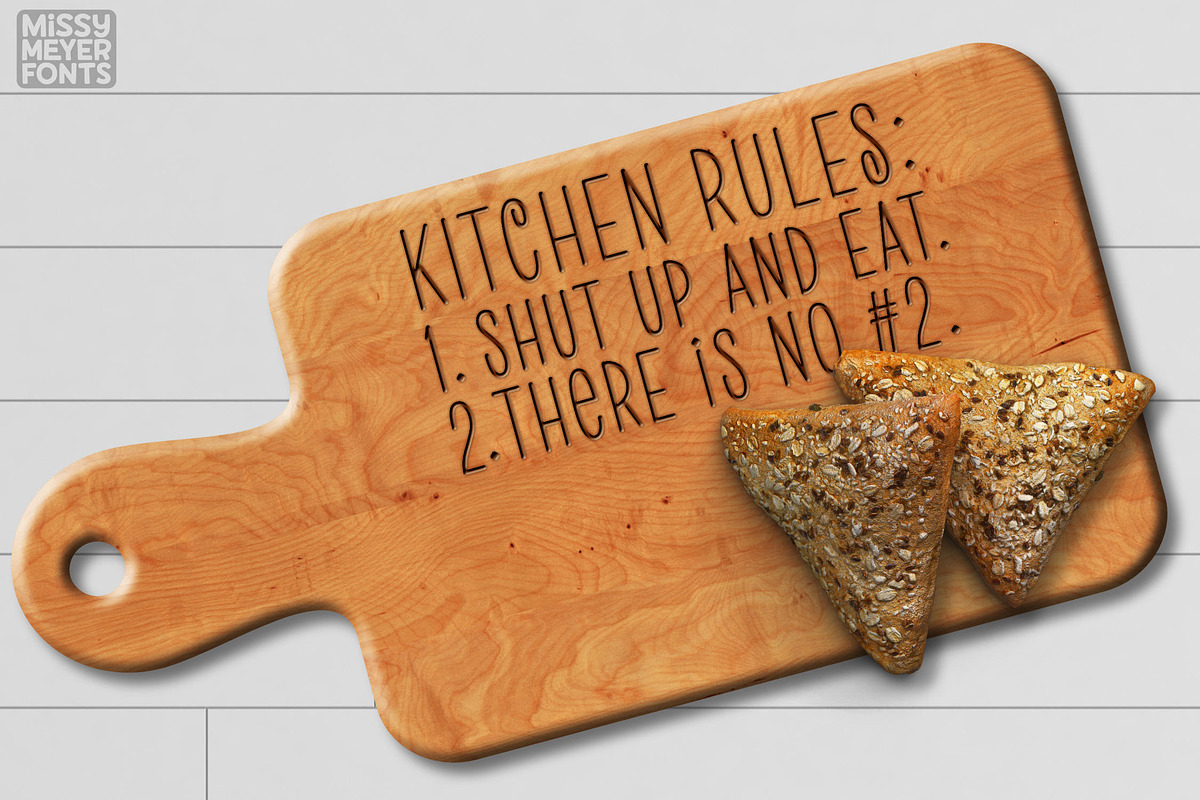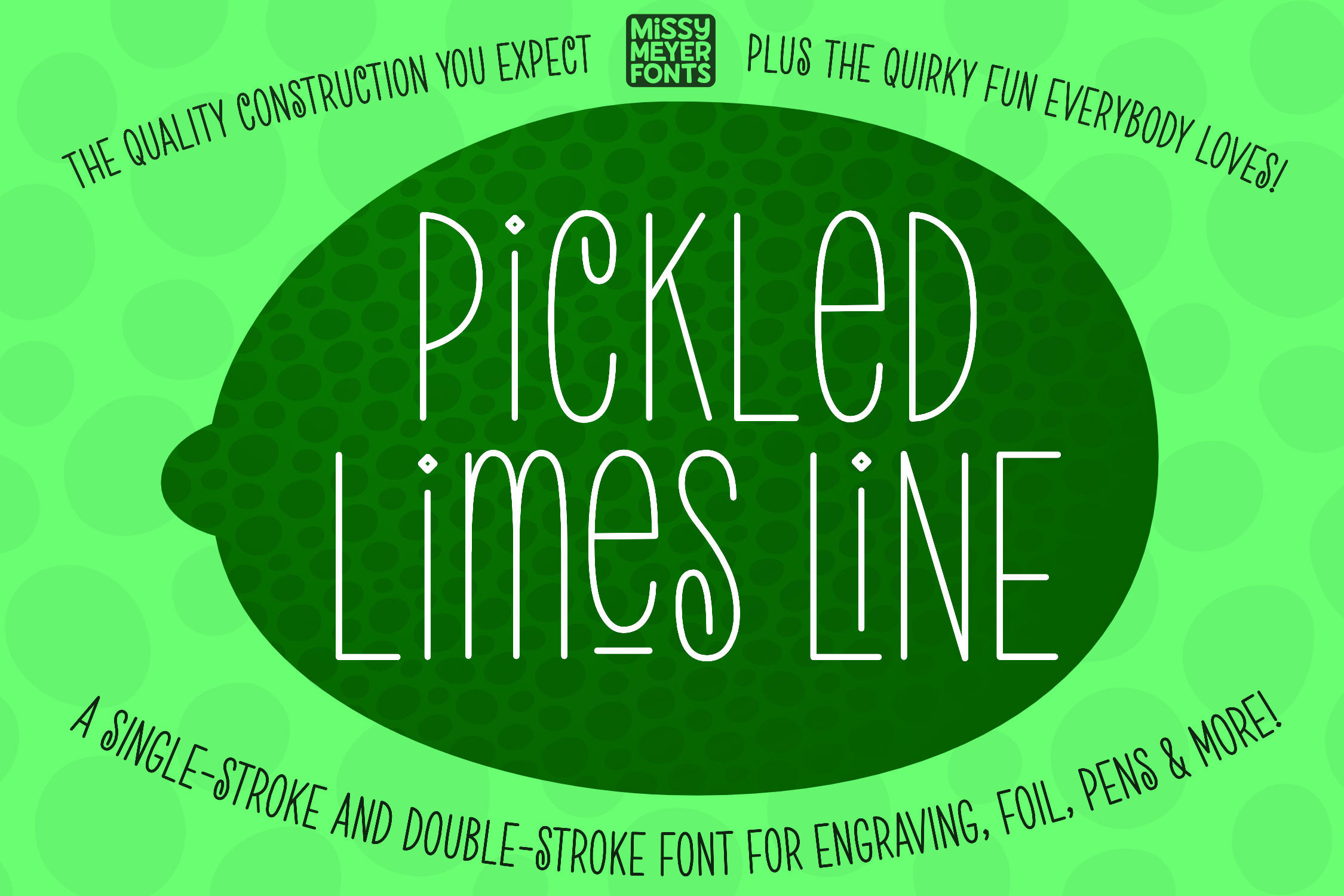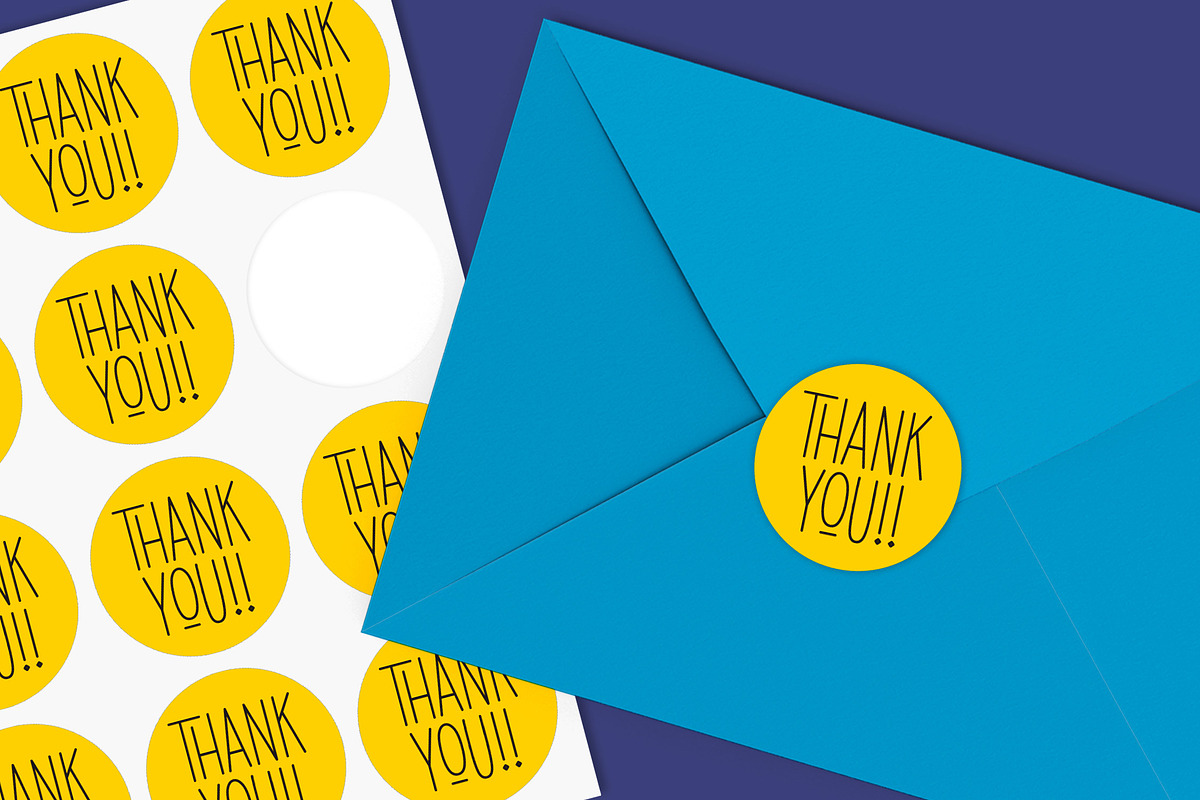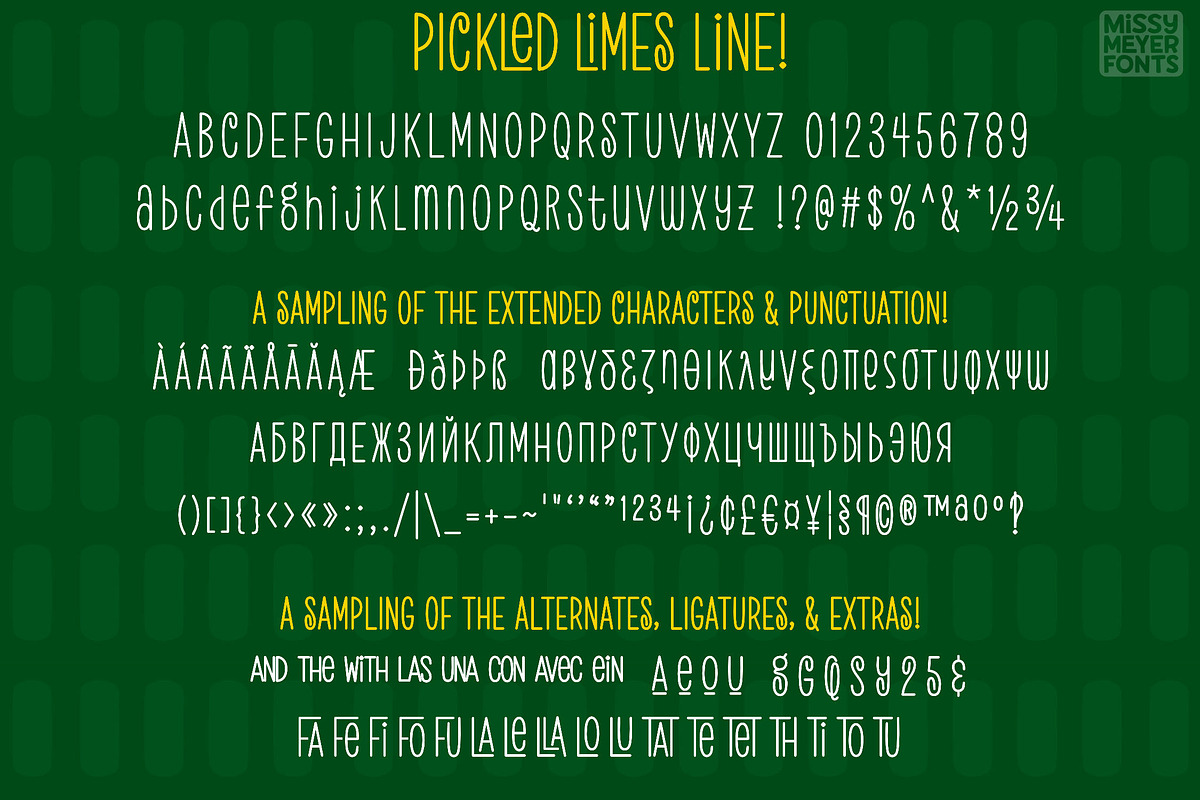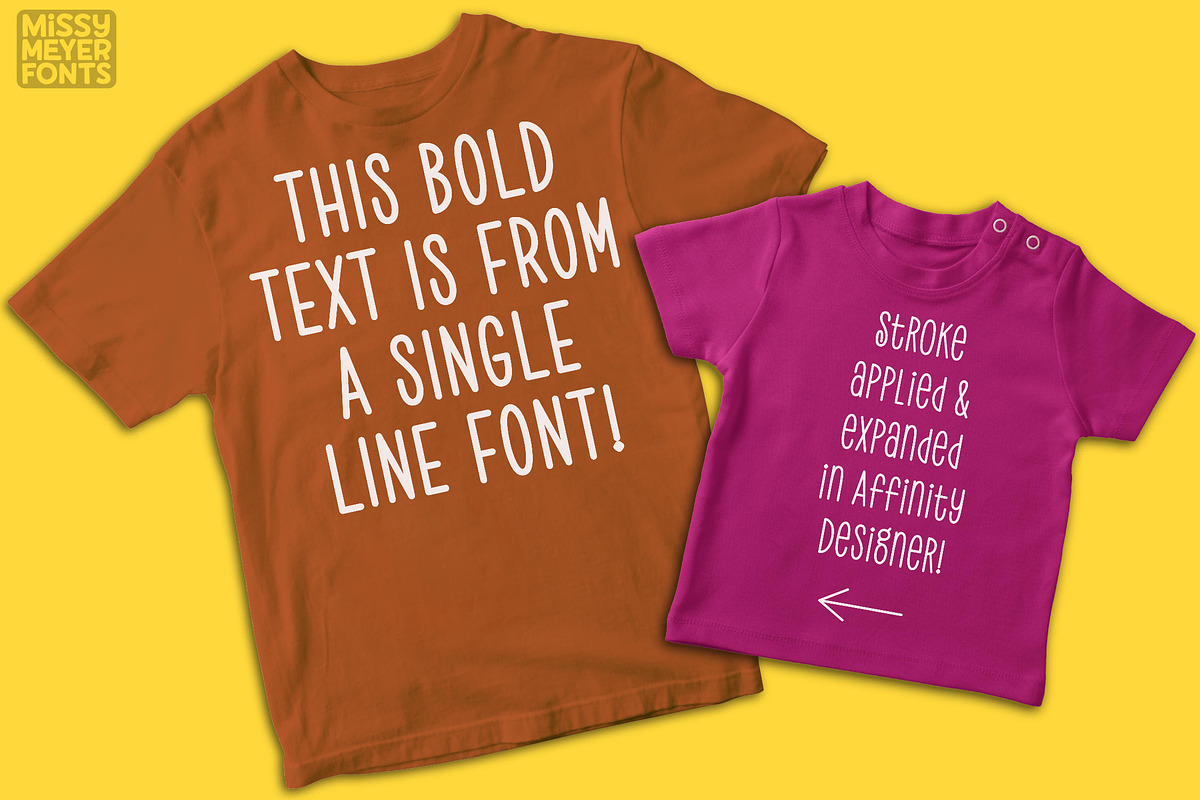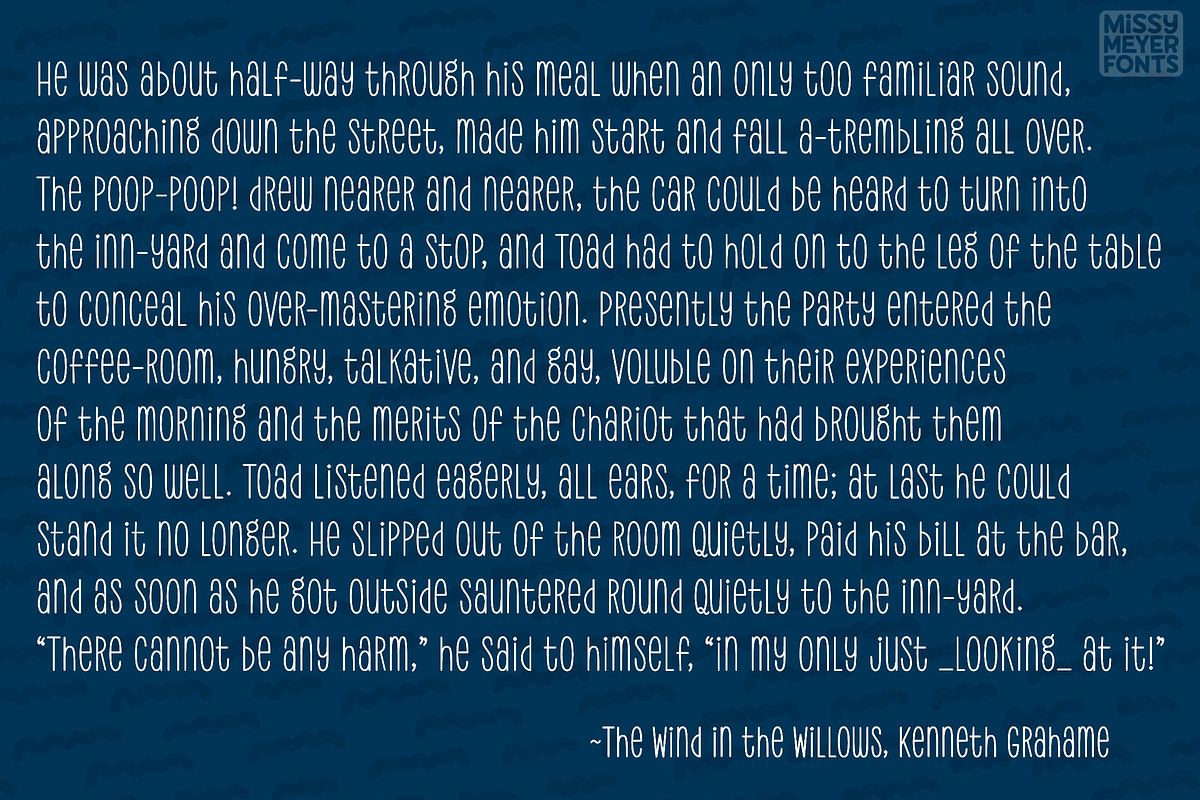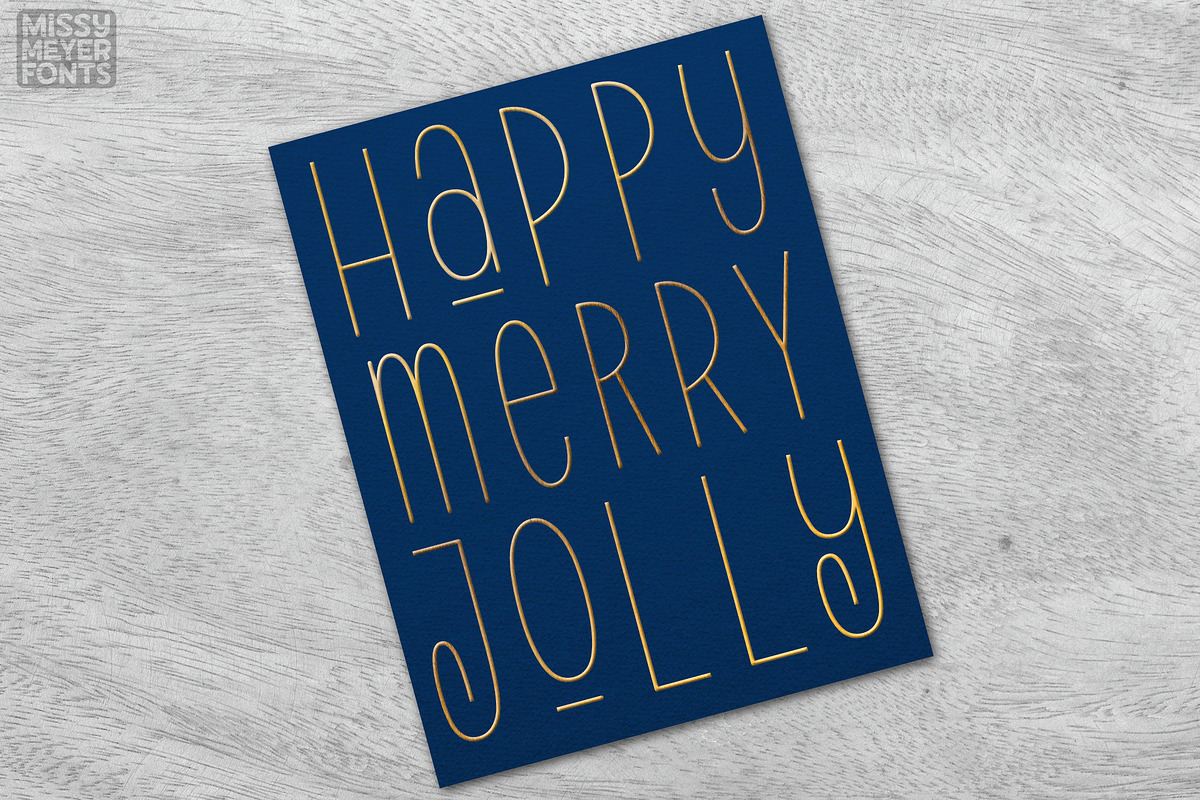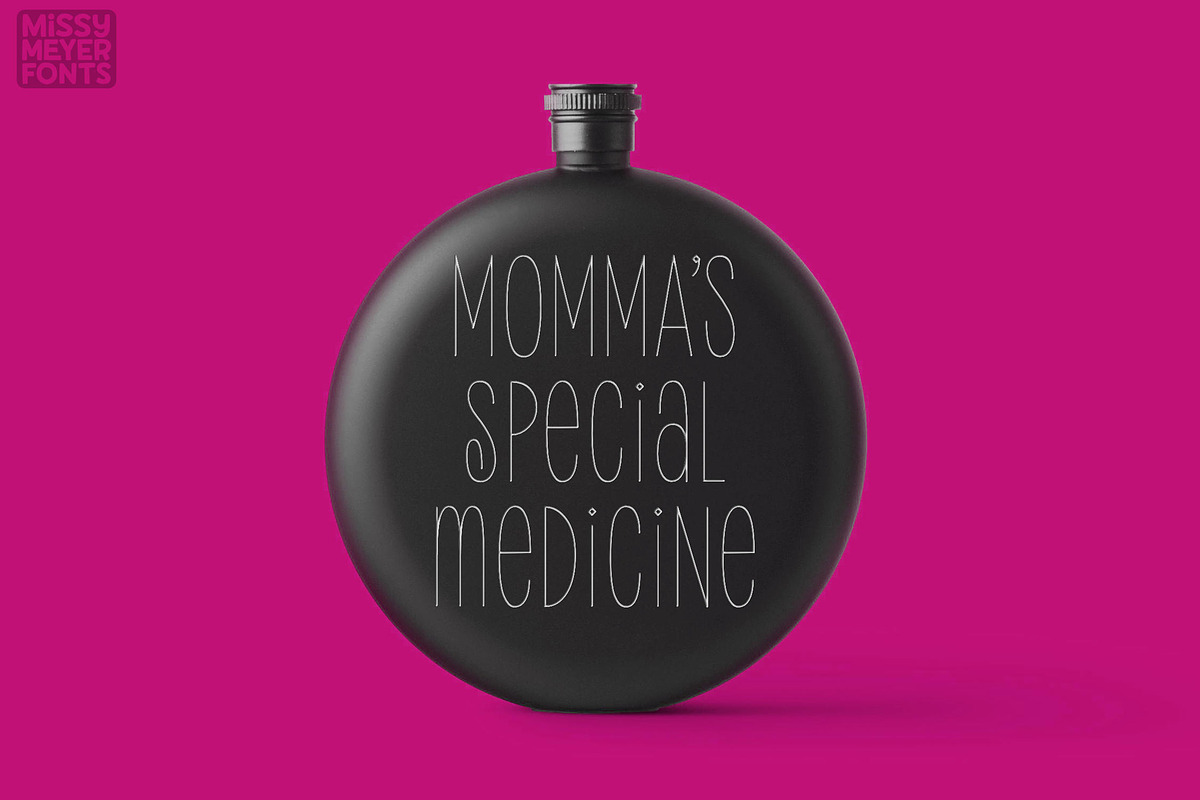
Pickled Limes Line: single-line font
Pickled Limes Line is a single-line font built from my "Pickled Limes" outline font. It has a fun tall and narrow handwriting style that works for tons of projects, from greeting cards to jewelry to cutting boards!
This font contains a boatload of characters: not only the usual Basic Latin character set (A-Z, a-z, 0-9, lots of punctuation; basically everything that appears on an English-language keyboard), but it also has Latin-1 Supplemental and Latin Extended-A characters for Western European language support, as well as full Greek and Cyrillic character sets!
Pickled Limes Line also has 90 alternates, ligatures, and catchwords to give your text fun variety!